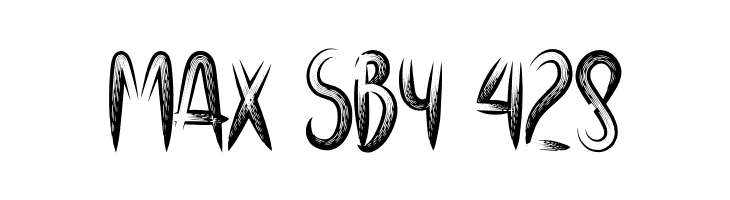
Tripping On Acid Font
Font by David Kerkhoff - www.hanodedphotography.com
A psychedelic, irregular font with high contrast and a playful, chaotic style.